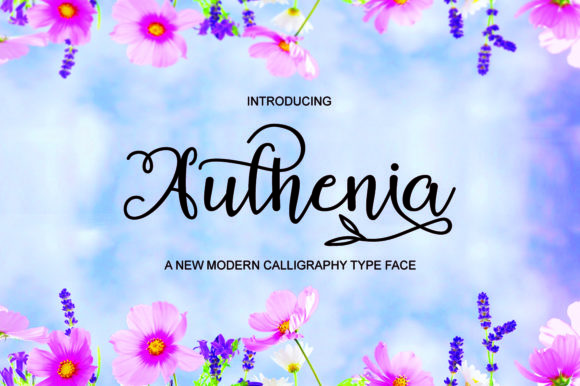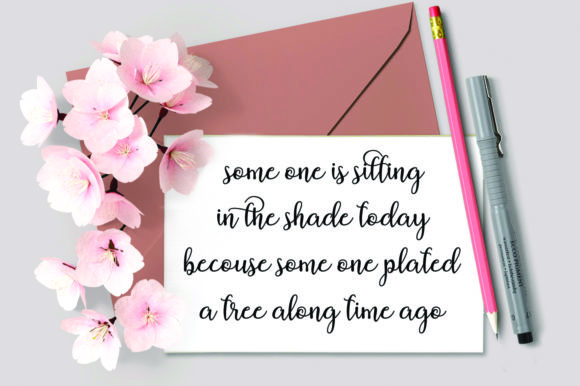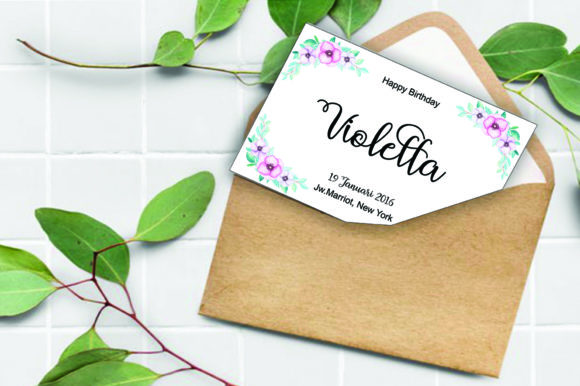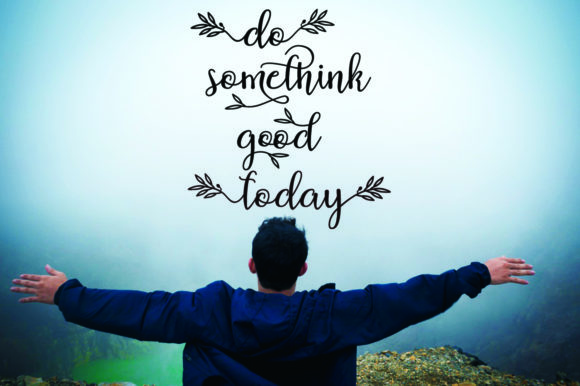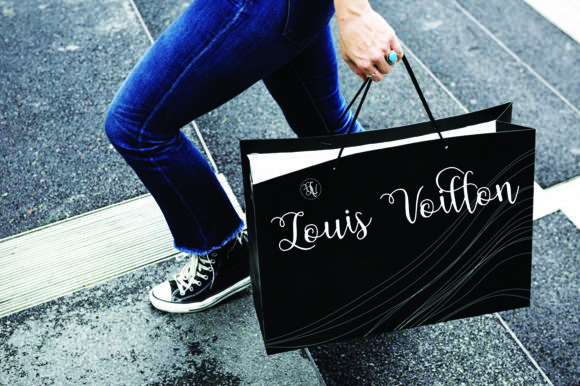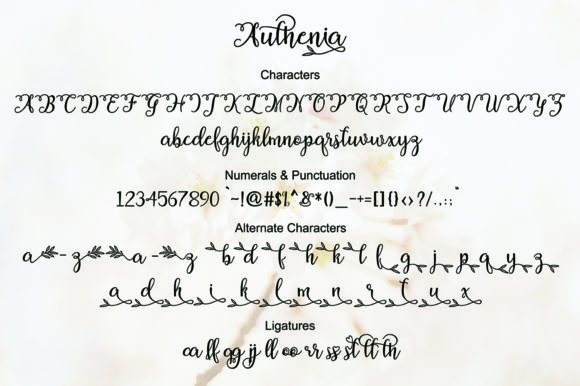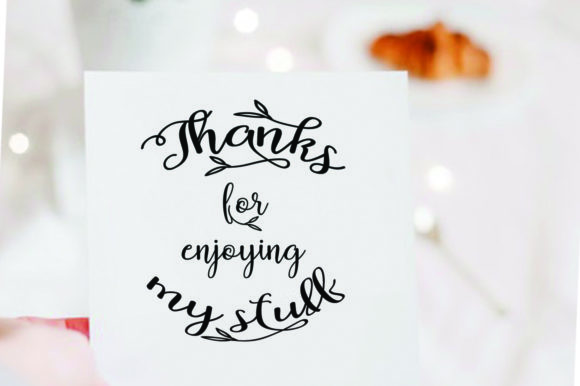
HomeScript FontsAuthenia Font Script Fonts Authenia Font FacebookXPinterestWhatsApp Authenia Font Poster 2 Authenia Font Poster 3 Authenia Font Poster 4 Authenia Font Poster 5 Authenia Font Poster 6 Authenia Font Poster 7 About Authenia Font Authenia is an unbelievably sweet and original script font that delivers elegance with a playful twist. DOWNLOAD ON CREATIVE FABRICAThis font is sold and delivered by Creative Fabrica. Font Canyon may earn a commission if you buy through this link. People also explored Shark Font Sugar Bitter Font Rabonnus Pillow Talk Font Midnight Font Black Light Font Chicago Athlete a Retro Sporty Font Clarissa Aliya Ramsey Font 399 0 TagsAuthenia Font Previous articleSunderland FontNext articleLadies Style Font LEAVE A REPLY Cancel reply Comment: Please enter your comment! Name:* Please enter your name here Email:* You have entered an incorrect email address! Please enter your email address here Website: Save my name, email, and website in this browser for the next time I comment. Personal Use Free Hatchill Personal Use Free Read more about this font Ashay Personal Use Free Read more about this font Bukhari Script Personal Use Free Read more about this font Tahu Font Personal Use Free Read more about this font BLOG Where to Buy American Fonts Online in 2024 Where to Buy American Fonts Online: The Ultimate Guide for 2024 Looking for the perfect American font to elevate your design projects? You're in the... Exploring Font Trends The 10 Best Handwriting Fonts to Add Personality to Your Designs Top 7 Google Fonts Alternatives for Faster and Privacy-Friendly Web Design (2025)